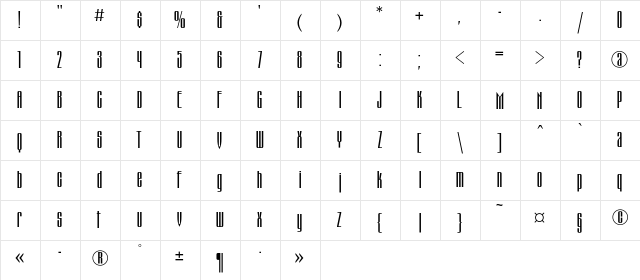
MontblancC Regular Font Preview
MontblancC Regular
Design Context for MontblancC Typeface
MontblancC offers clean, dependable letterforms without strong stylistic allegiance, making it a practical choice for designers who need flexibility.
Pro Tip: Use MontblancC in both headline and body roles to test its range before committing to a single application.